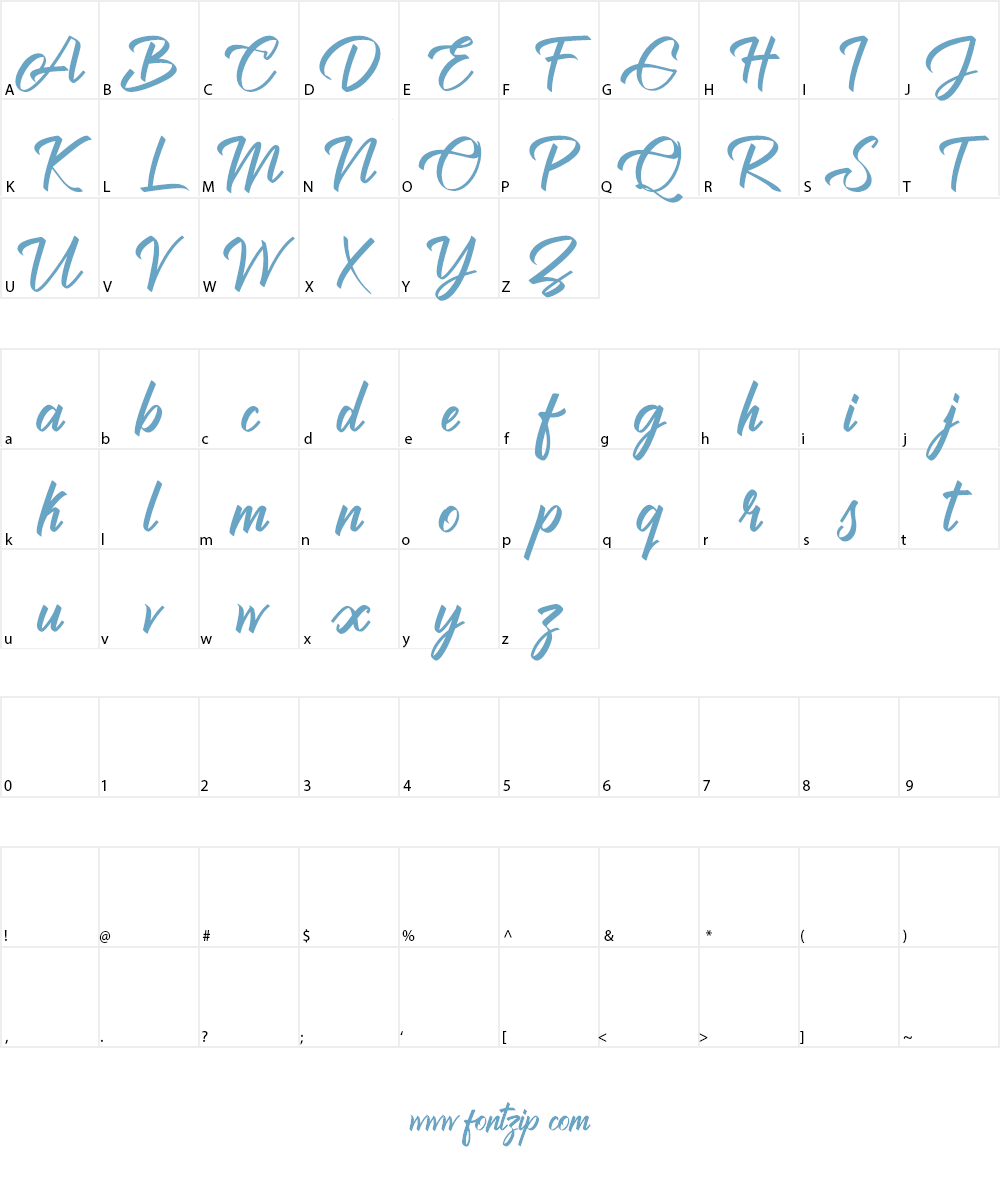
Brilliantte is script calligraphy font. carefully crafted from sketch manually.
this font is looks good to use it for Logotype, Name Tag, Short Quotes, Packaging Design, Merchandise, Business Card, and many more Design Project.
This font was impressed young, energetic and elegant.
It contains a full set of Uppercase, Lowercase letters, Punctuation, Numerals, and Multilingual support.
Stylistic Alternate
Standart Ligature
Brilliantte Swash